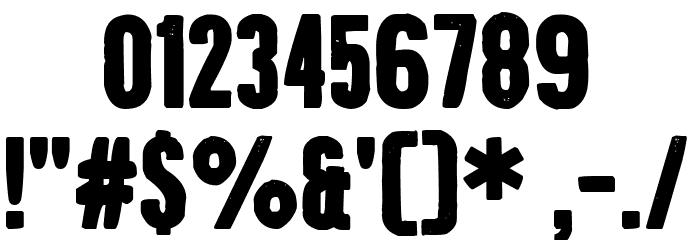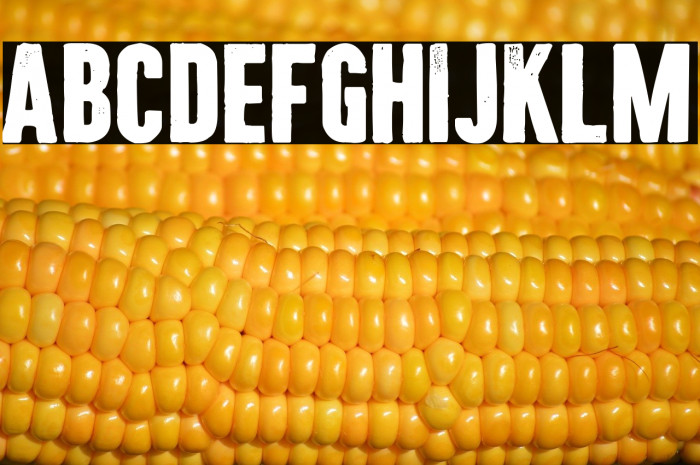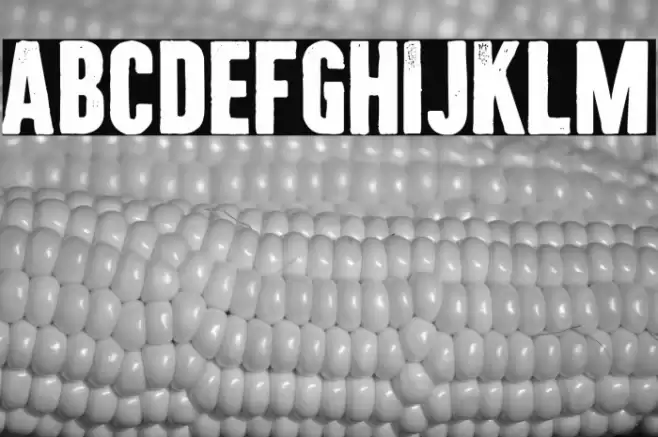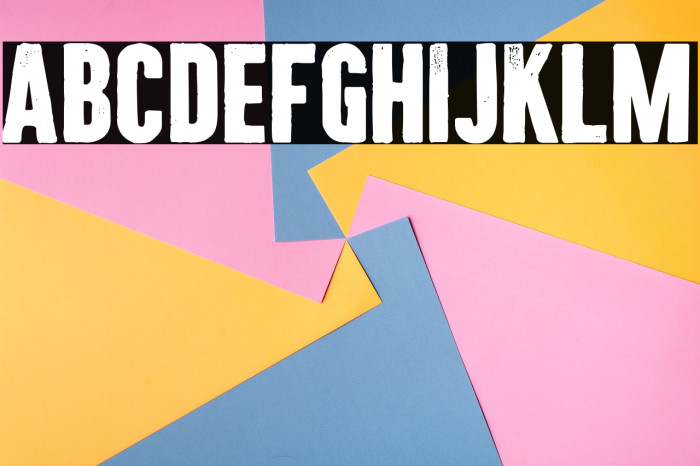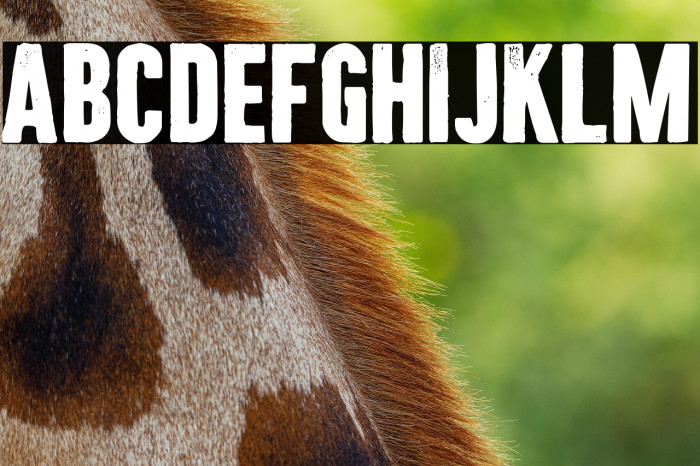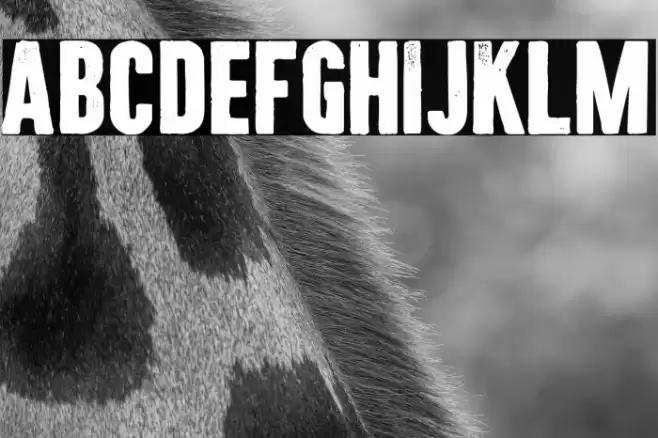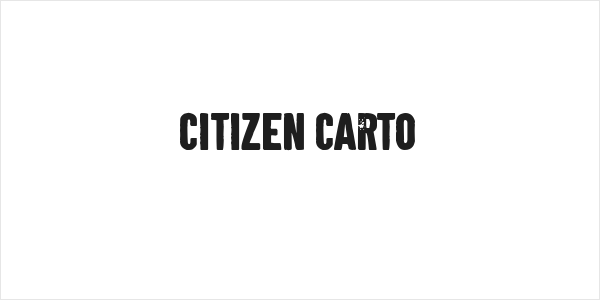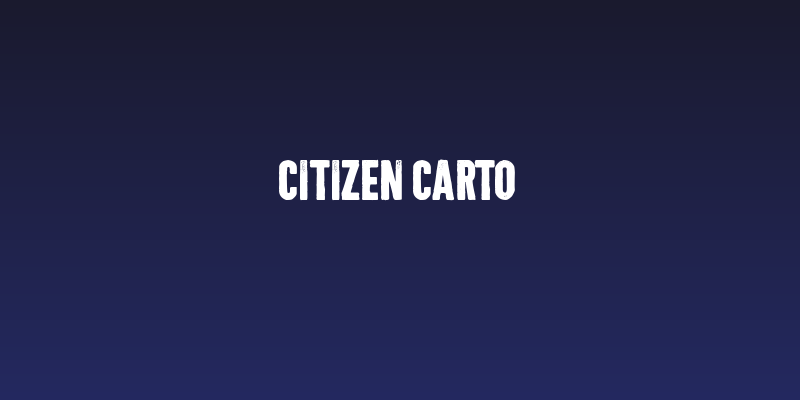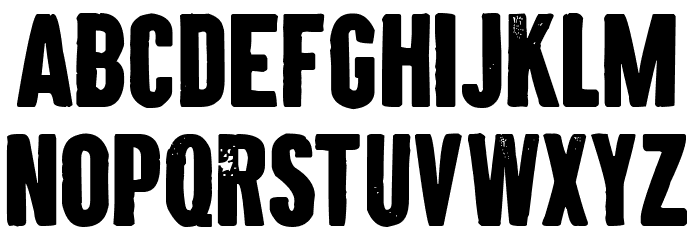
Citizen Carto Font
Citizen Carto Description
This font features a bold and rugged style with a distressed texture, giving it a vintage and worn appearance. The uppercase letters are prominent and impactful, while the lowercase letters maintain the same boldness. The numbers and special characters follow the same design, ensuring consistency across all glyphs. The texture adds a unique character, making it ideal for projects that require a strong, eye-catching typeface. The font's boldness and texture make it suitable for designs that aim to convey a sense of strength and authenticity.
Overall StyleVintage, Rugged
Proposed ProjectsIdeal for posters, branding, packaging, and any project needing a strong, vintage look.